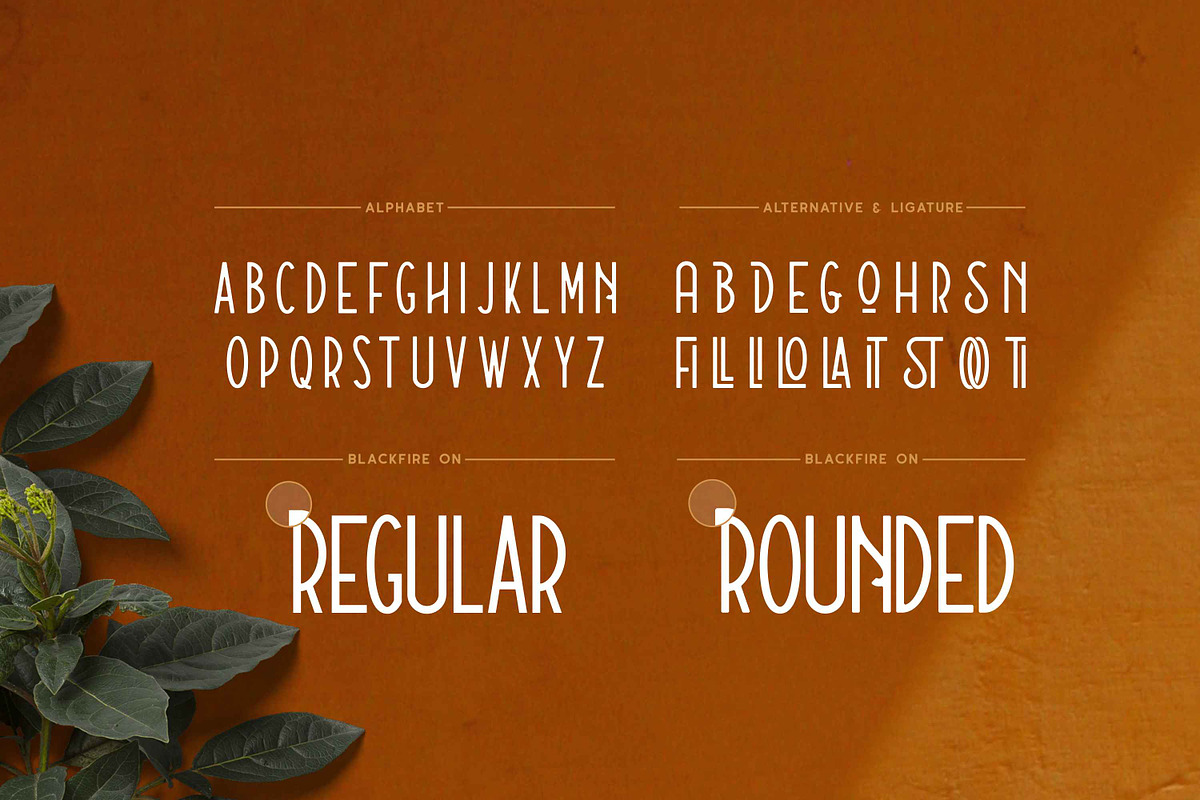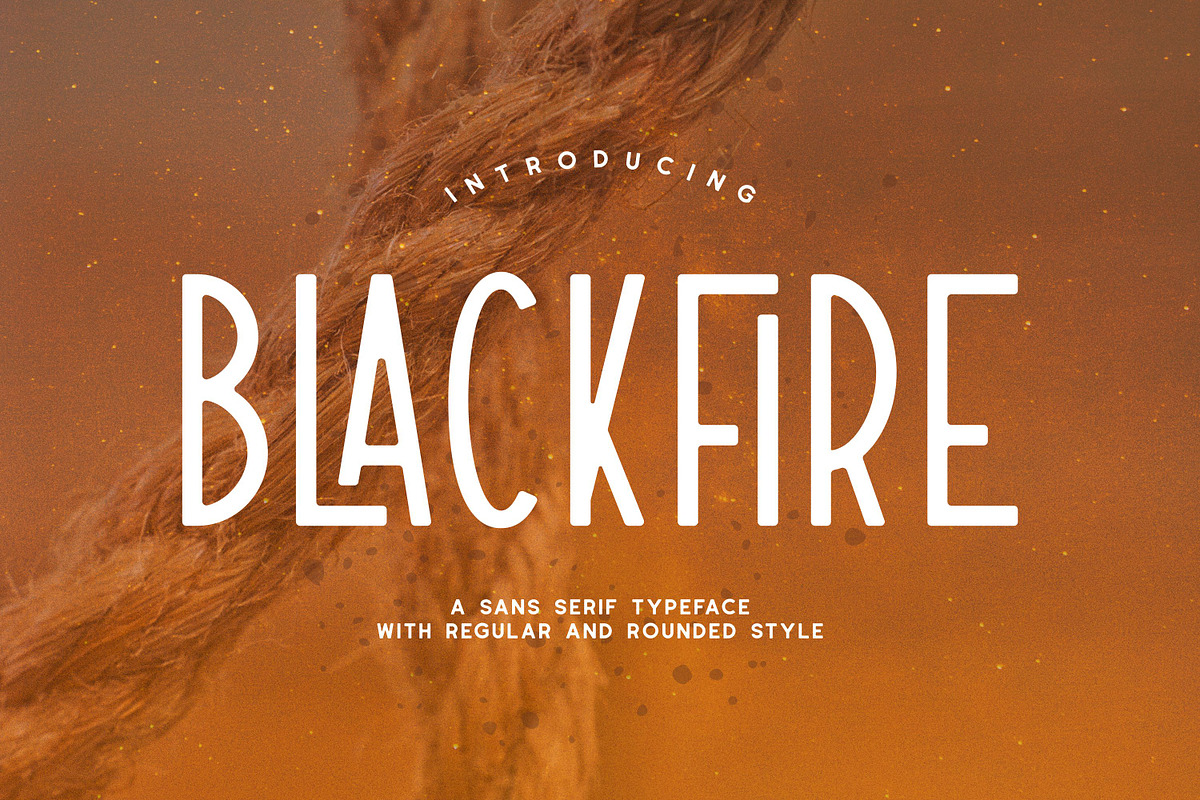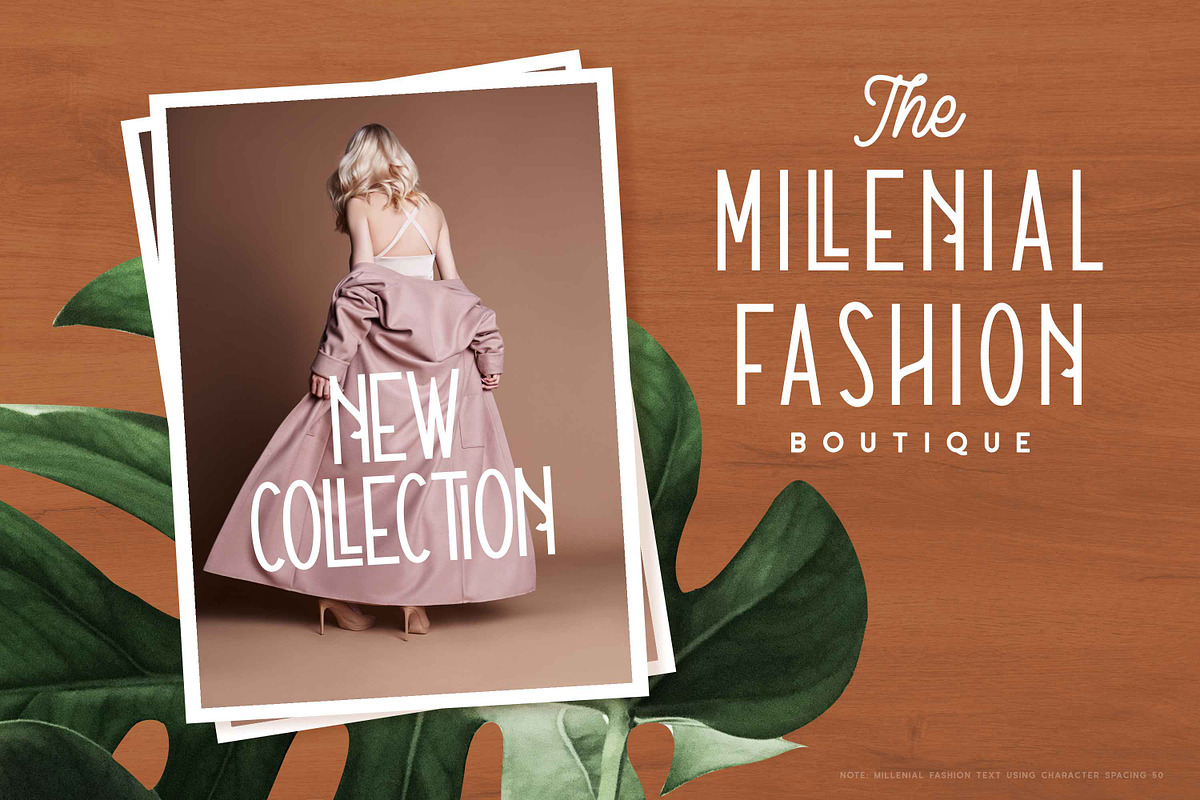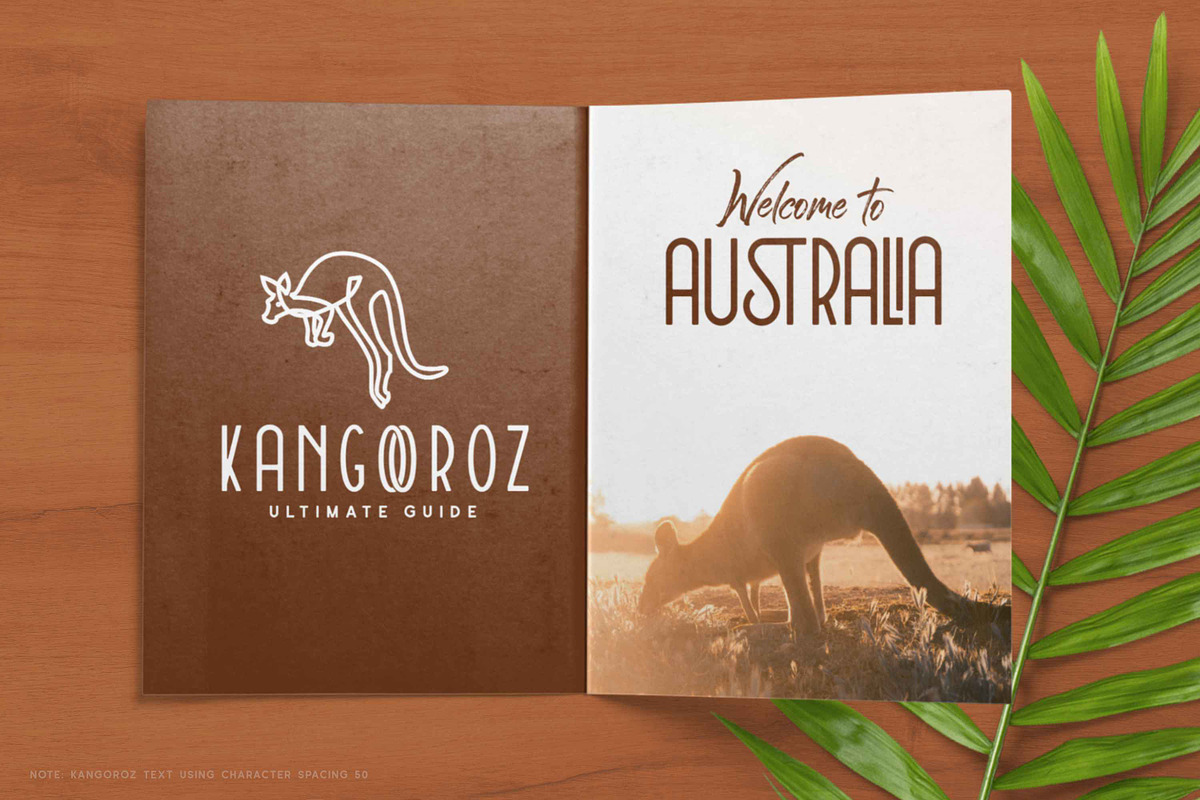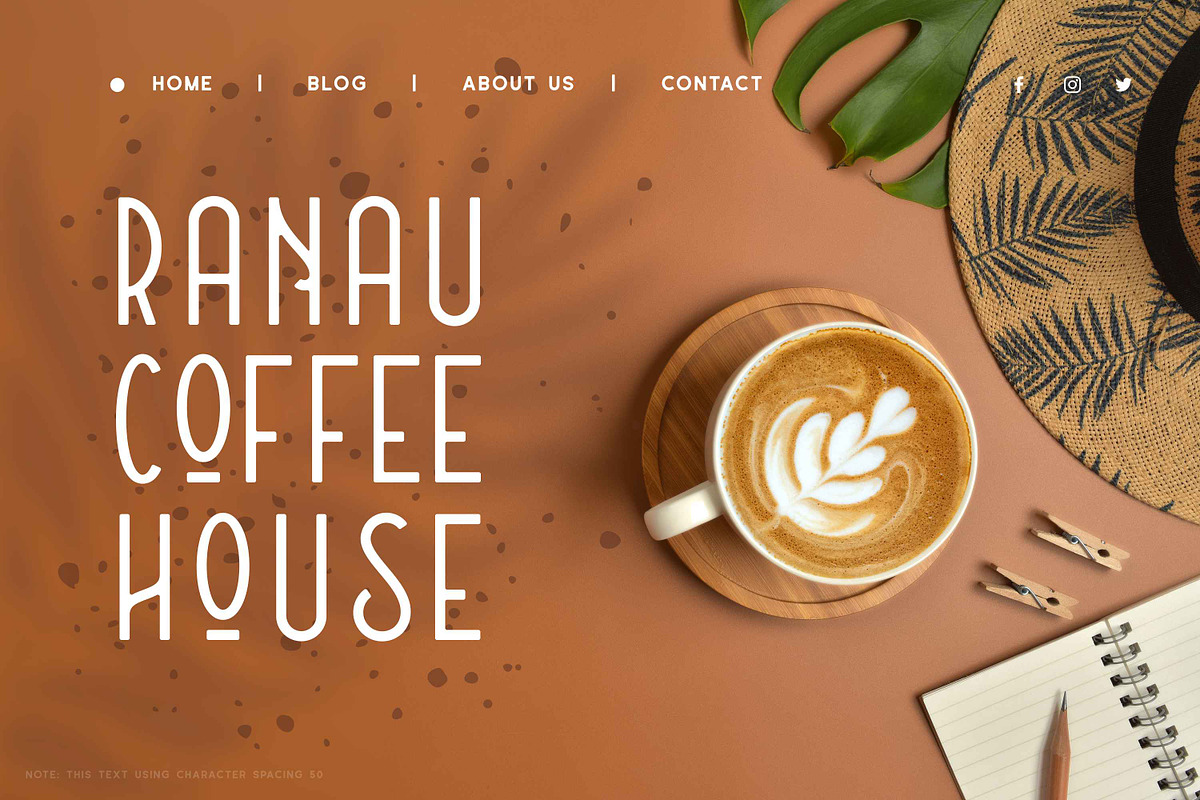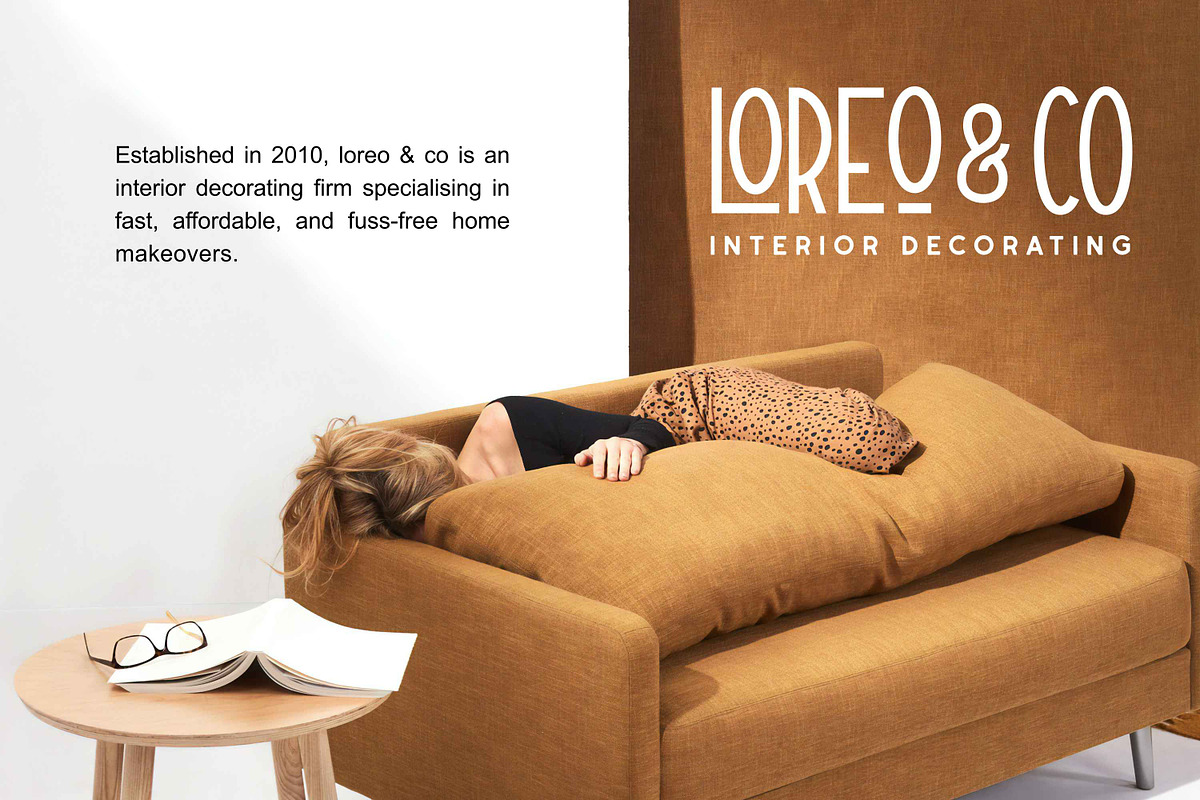
Blackfire - Sans Serif Font
Blackfire is a classic sans serif font that features beautiful alternates and ligatures, with regular and rounded edges in favor of a smooth and clean look. Blackfire font have a features beautiful alternates and ligatures, allowing you to experiment with and create a multitude of stunning results. You also use Blackfire font for design project like logotype, poster, promotional design, header, and many more.
Regular and rounded style